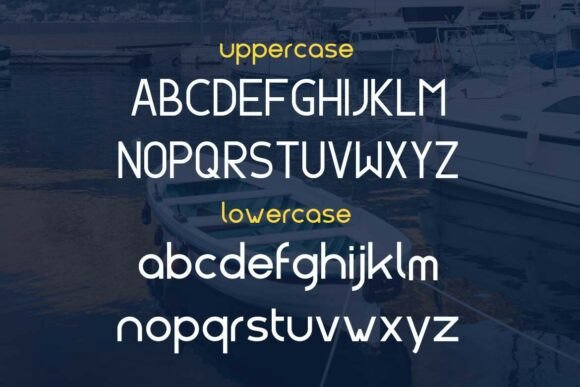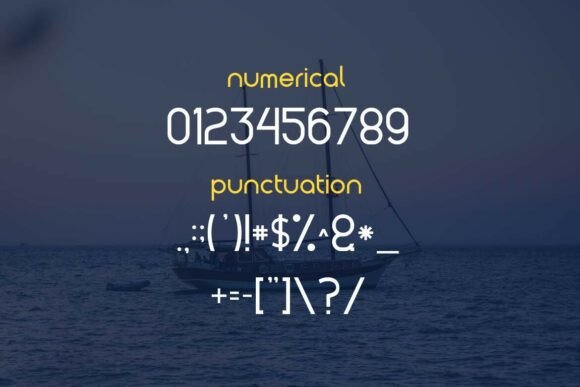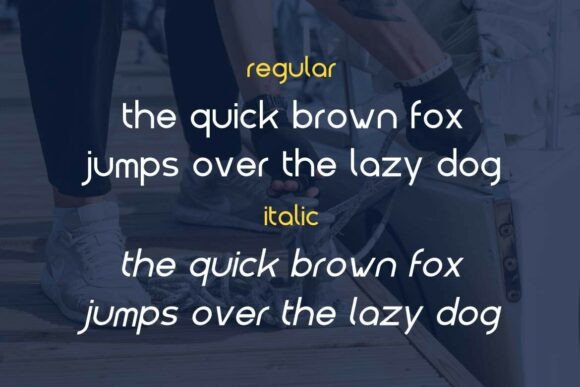
Introduction to Nagasatru Font
Nagasatru is a modern minimalist sans serif font crafted for designers who value clarity, balance, and understated elegance.
With its clean lines, subtle curves, and spacious layout, Nagasatru is perfect for branding, editorial design, lifestyle content, packaging, websites, and presentations that need a refined yet approachable look .